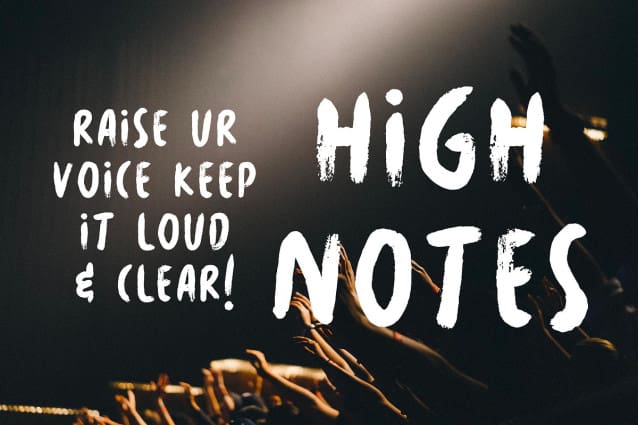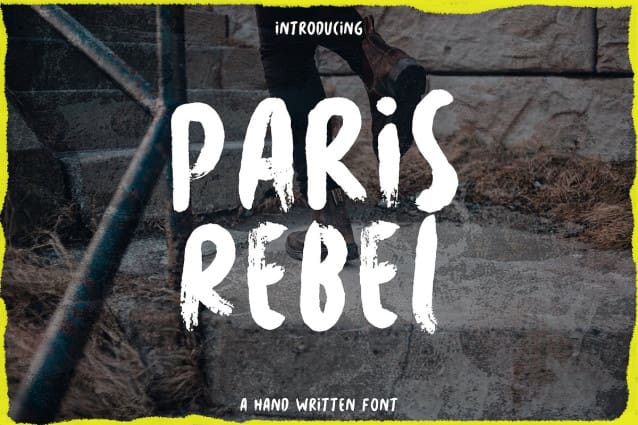
Paris Rebel Font
Paris Rebel Font a unique display font from Strokes.ink. This handy sans serif includes a full character, numbers, punctuation & also alternate version. Perfect for big displays, titles, posters, marketing & advertising.